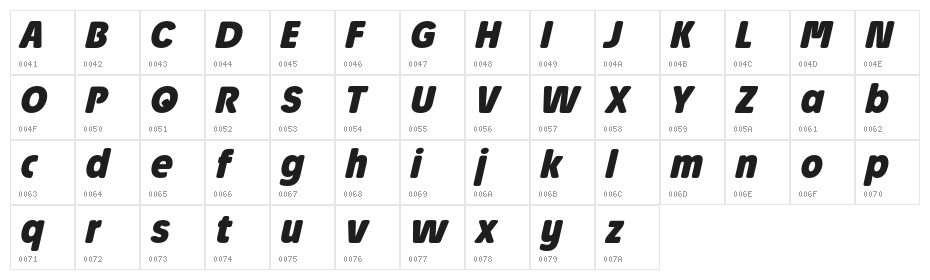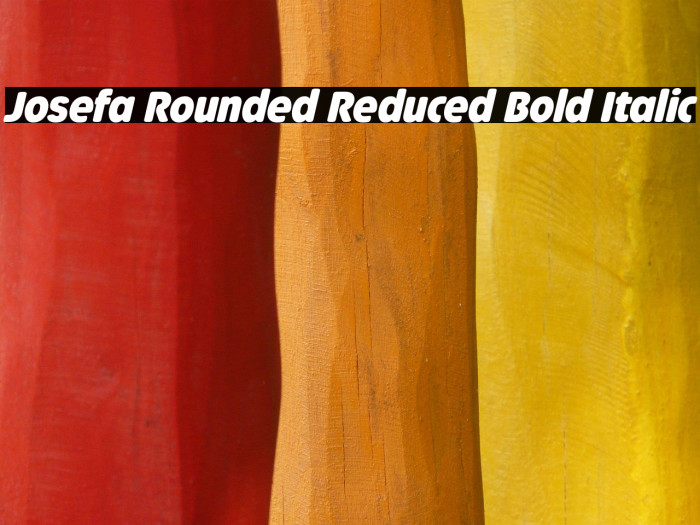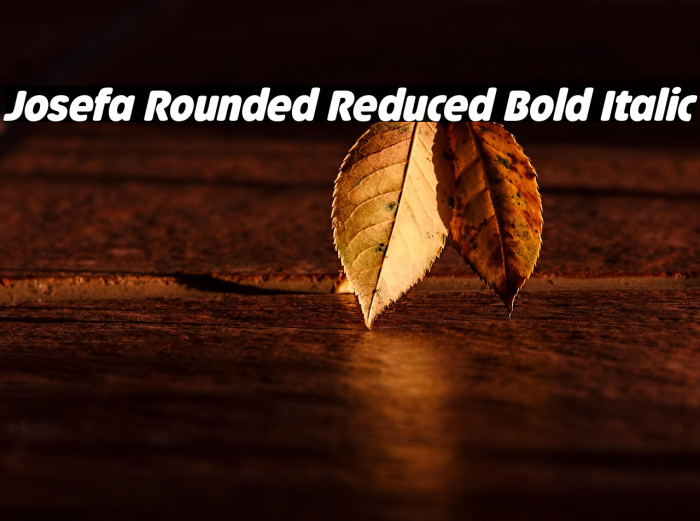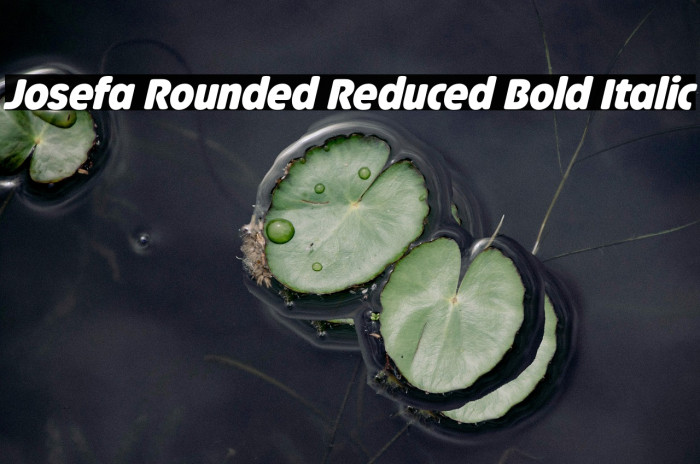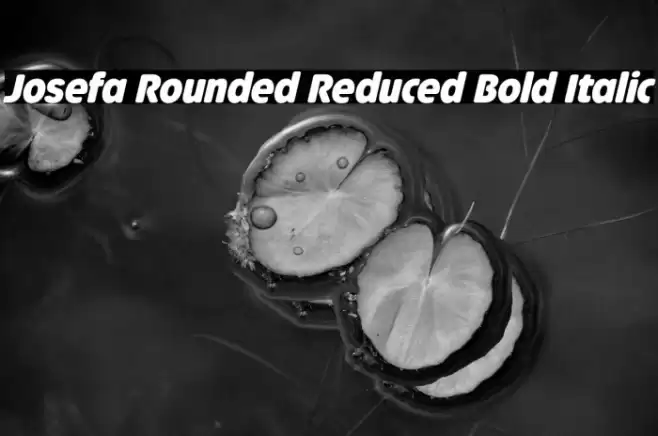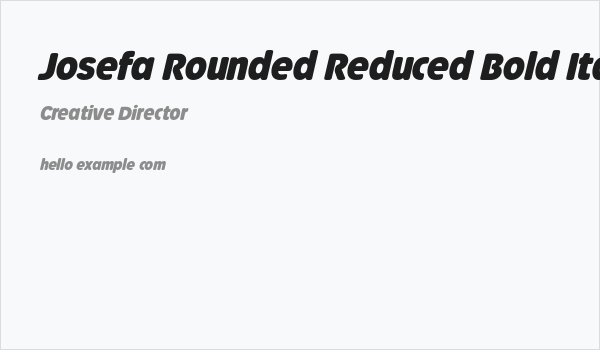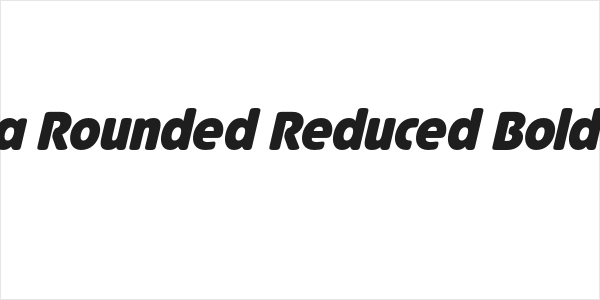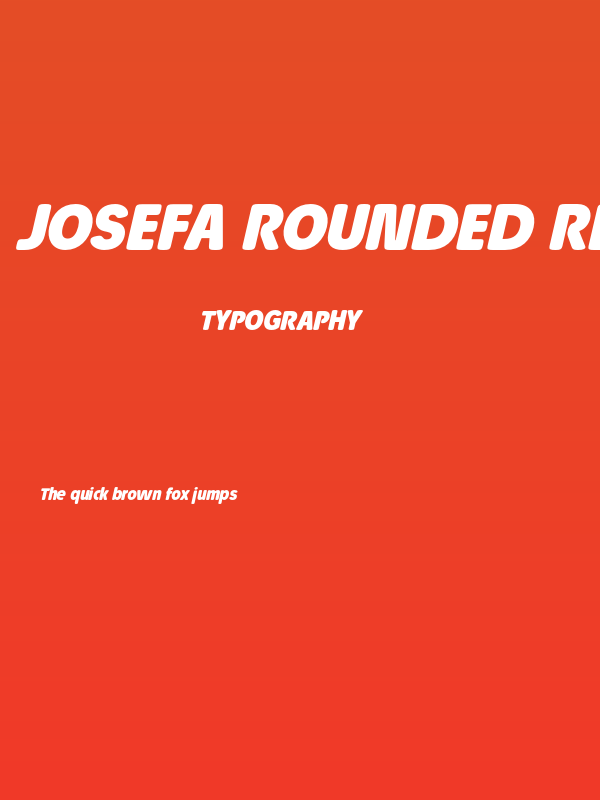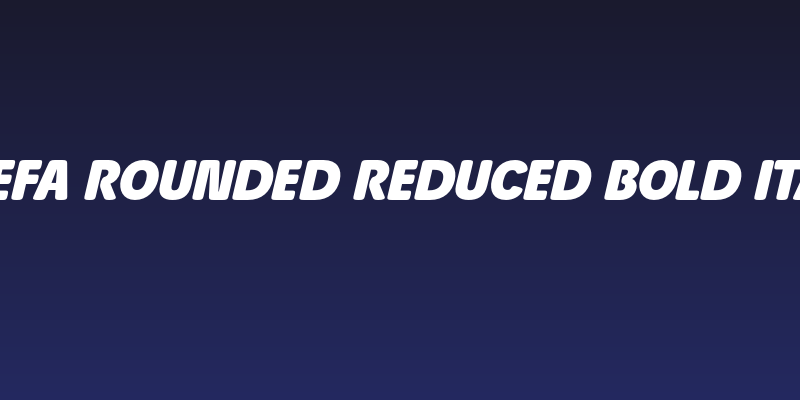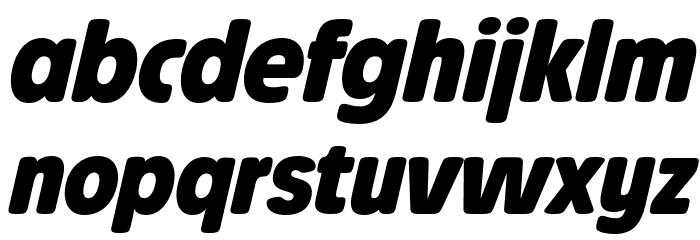
Josefa Rounded Reduced Bold Italic Font
Josefa Rounded Reduced Bold Italic Description
This typeface features a bold and rounded design with a distinct italic slant, giving it a friendly and approachable appearance. The letters are uniformly thick, contributing to a cohesive and solid look. The rounded edges soften the overall feel, making it suitable for projects that require a warm and inviting tone. The italic style adds a dynamic and energetic touch, enhancing its versatility. This font is particularly effective in capturing attention while maintaining readability, making it ideal for various creative applications.
| Proposed Projects | Ideal for branding, advertising, packaging, and children's book covers due to its playful and approachable nature. |